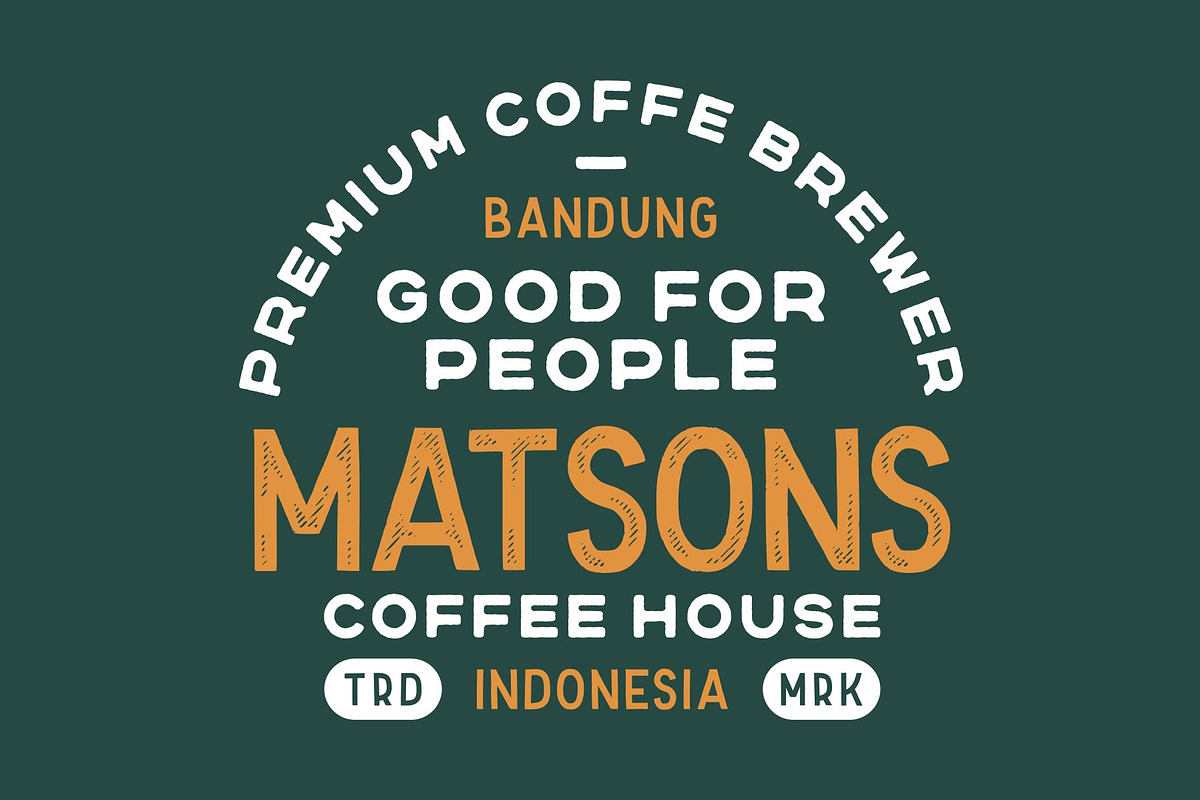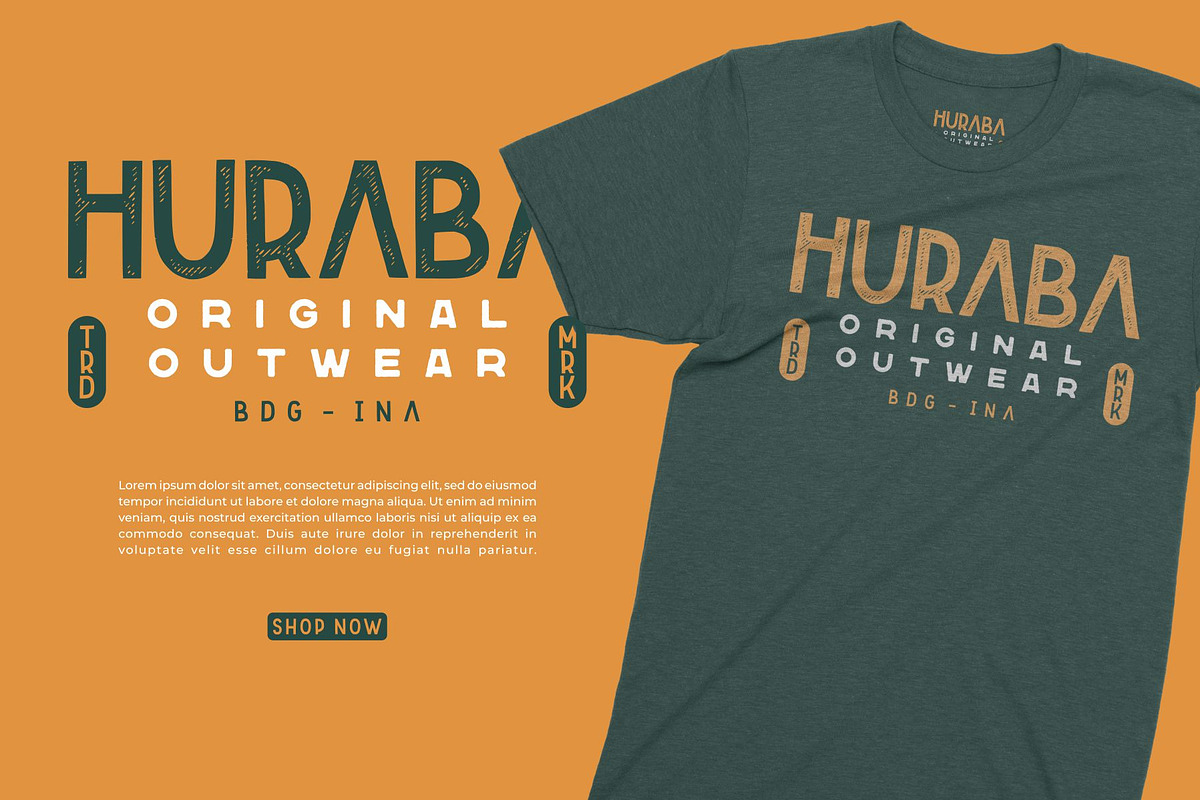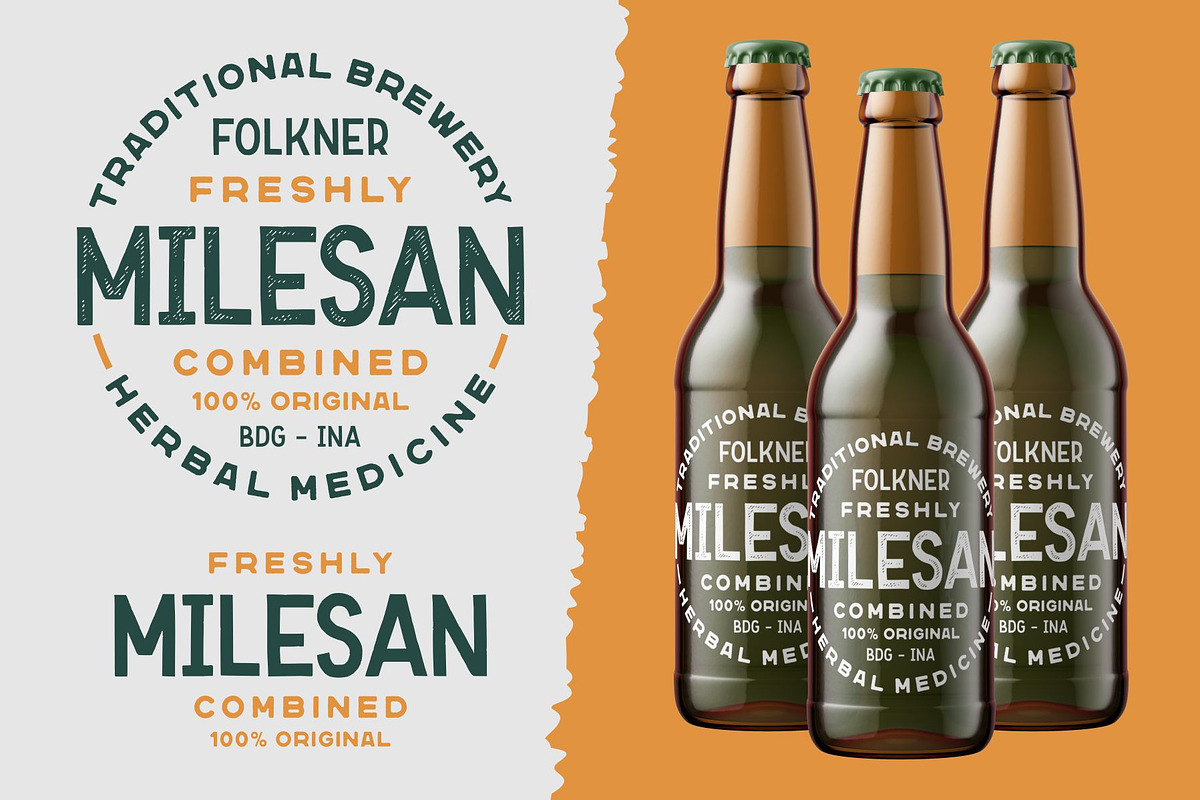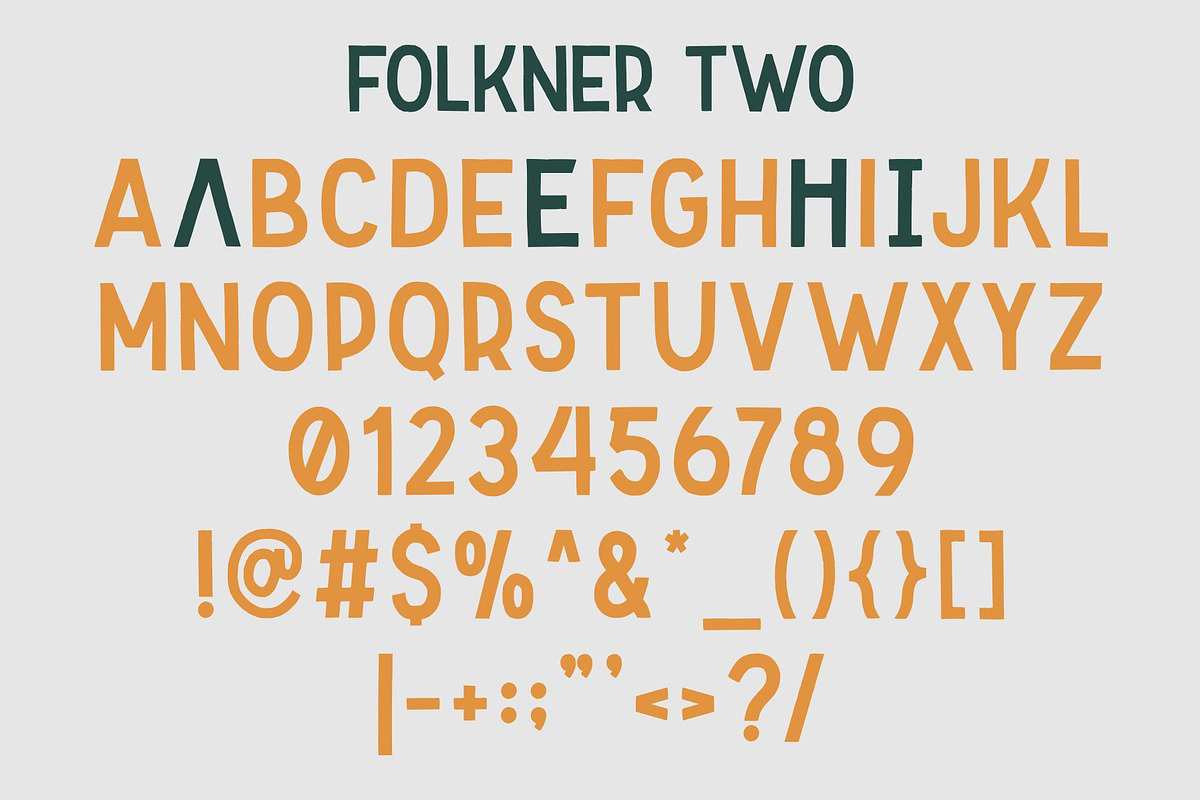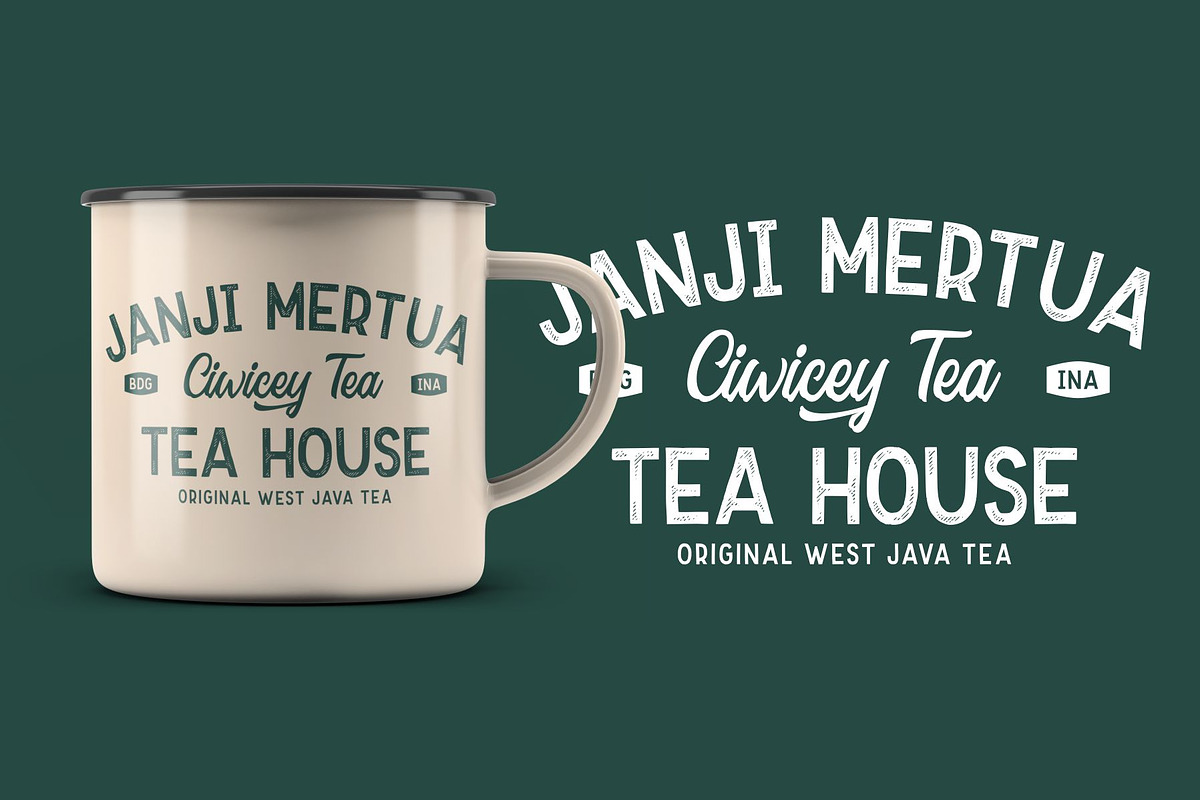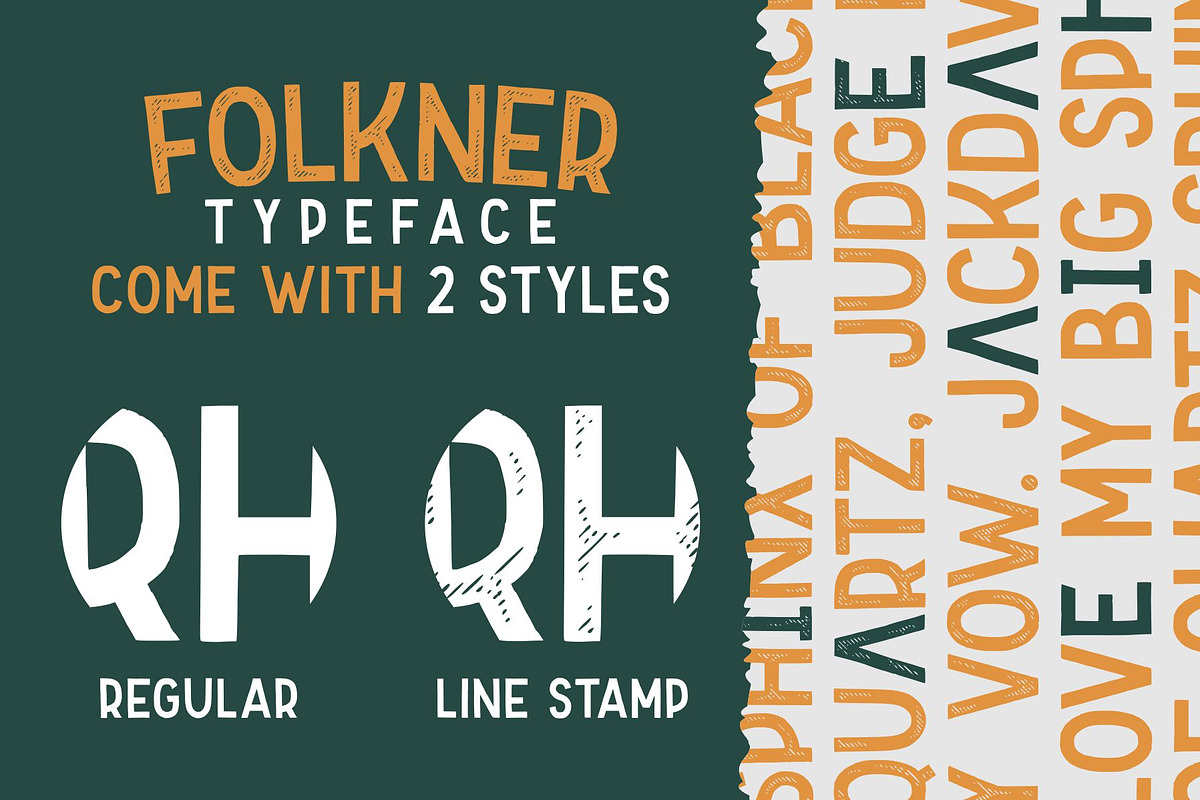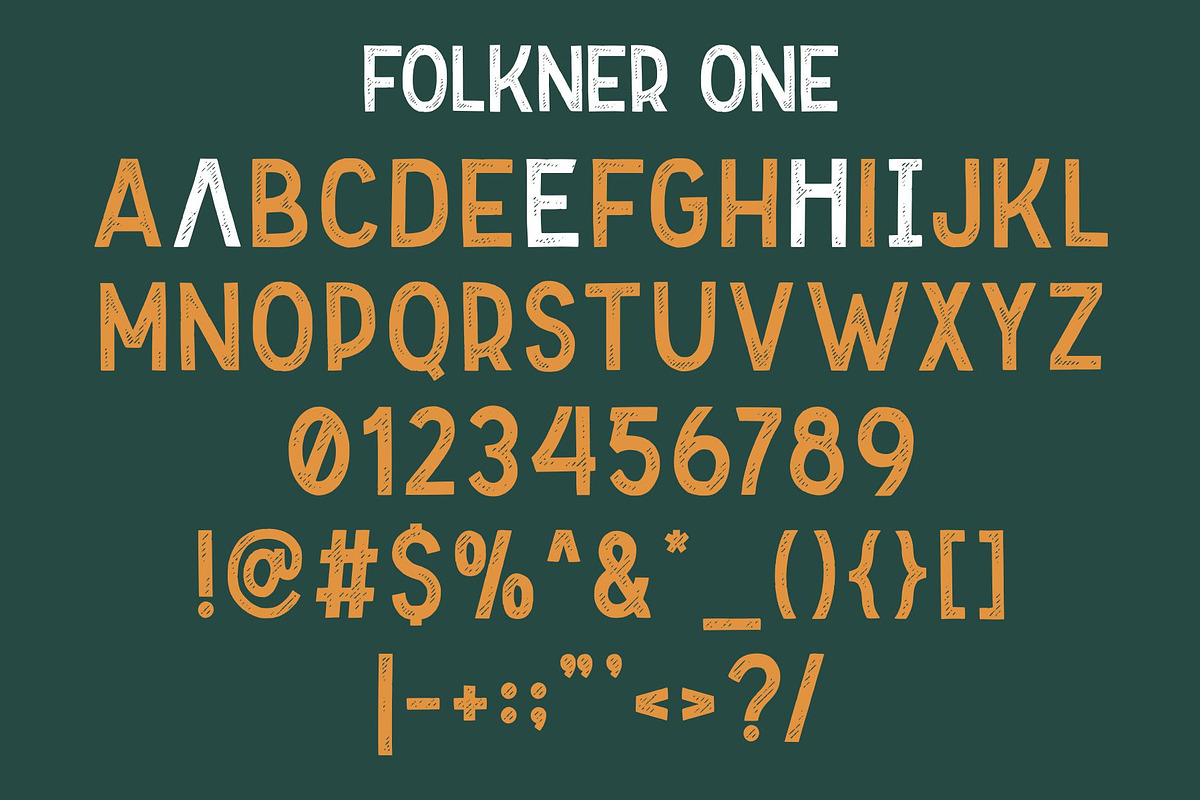
Folkner - Vintage Typeface
Proudly Present Folkner - Vintage Typeface
Folkner born from an inspiring vintage display. This font gives a feel of a vintage, classic, old, and based on handmade. With messy line stamp touch in Folkner Two give you a vintage taste. Already PUA Encoded and I think this font is perfect for people looking for vintage aesthetic or logo-type. Suitable for any graphic designs such as branding materials, t-shirt, print, business cards, logo, poster, t-shirt, photography, quotes .etc.
All glyphs with Caps styles
Why Folkner - Vintage Typeface is worth a look
Folkner - Vintage Typeface by Garisman Std fits naturally into Branding, posters, packaging, typography.